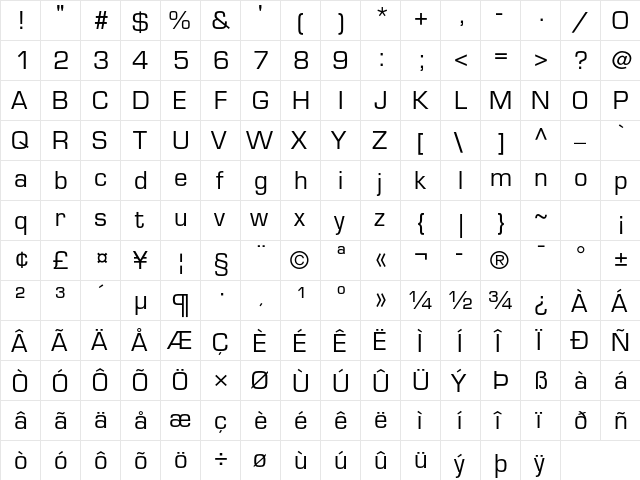
Eurostile LT Std Medium
| Designer | Aldo Novarese, A. Butti |
Design Context for Eurostile LT Std Typeface
Eurostile LT Std offers clean, dependable letterforms without strong stylistic allegiance, making it a practical choice for designers who need flexibility. The delicate stroke weight brings airiness and refinement to layouts.
Pro Tip: Use Eurostile LT Std in both headline and body roles to test its range before committing to a single application.